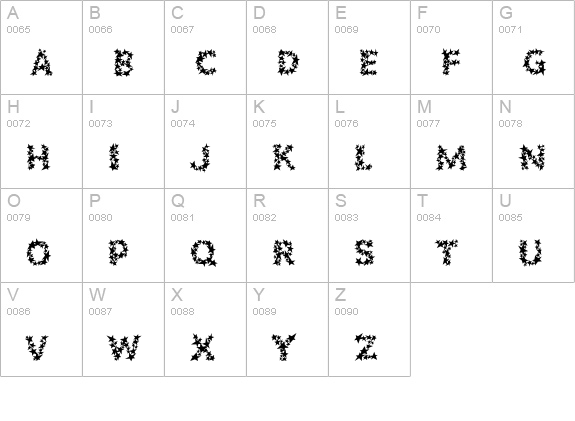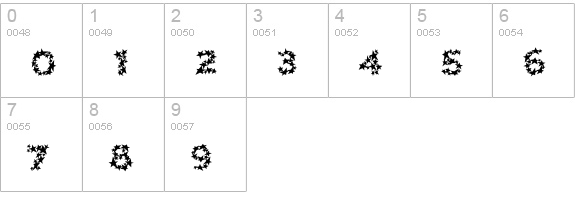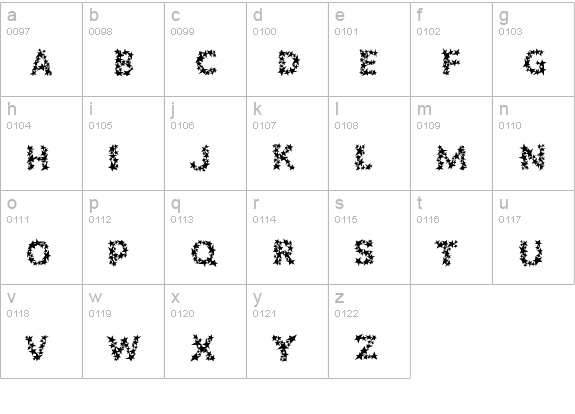
PopstarsFill Font Details
PopstarsFill font is a fun and vibrant display typeface that exudes a sense of energy and playfulness. With its bold and eye-catching design, this font is perfect for creating attention-grabbing headlines, posters, and social media graphics. The playful, filled-in letters give off a modern and trendy vibe, making it ideal for projects that require a youthful and dynamic aesthetic. What sets PopstarsFill font apart is that it is free to download at FontsMarket.com, making it accessible to designers of all levels. Whether you're working on a personal project or a client's campaign, this font provides a versatile and stylish option that can add a touch of whimsy to any design. So go ahead and unleash your creativity with PopstarsFill font - download it today and let your imagination run wild!